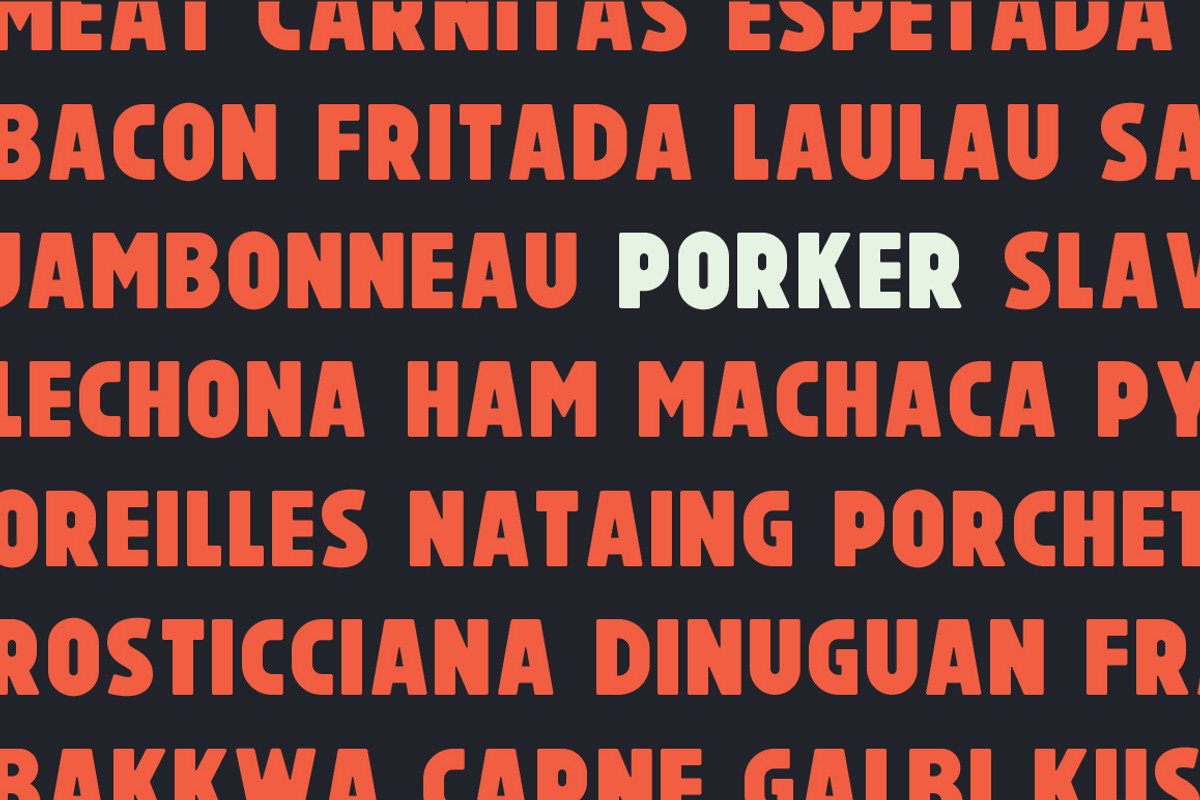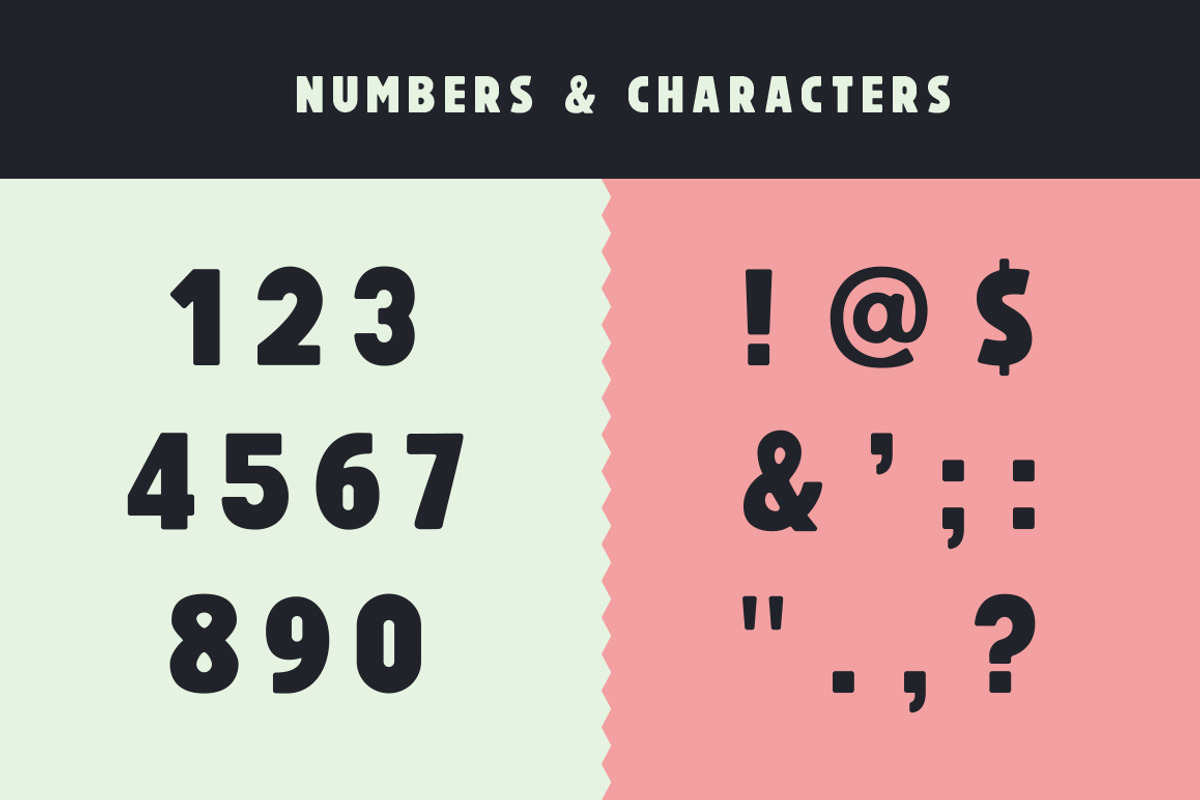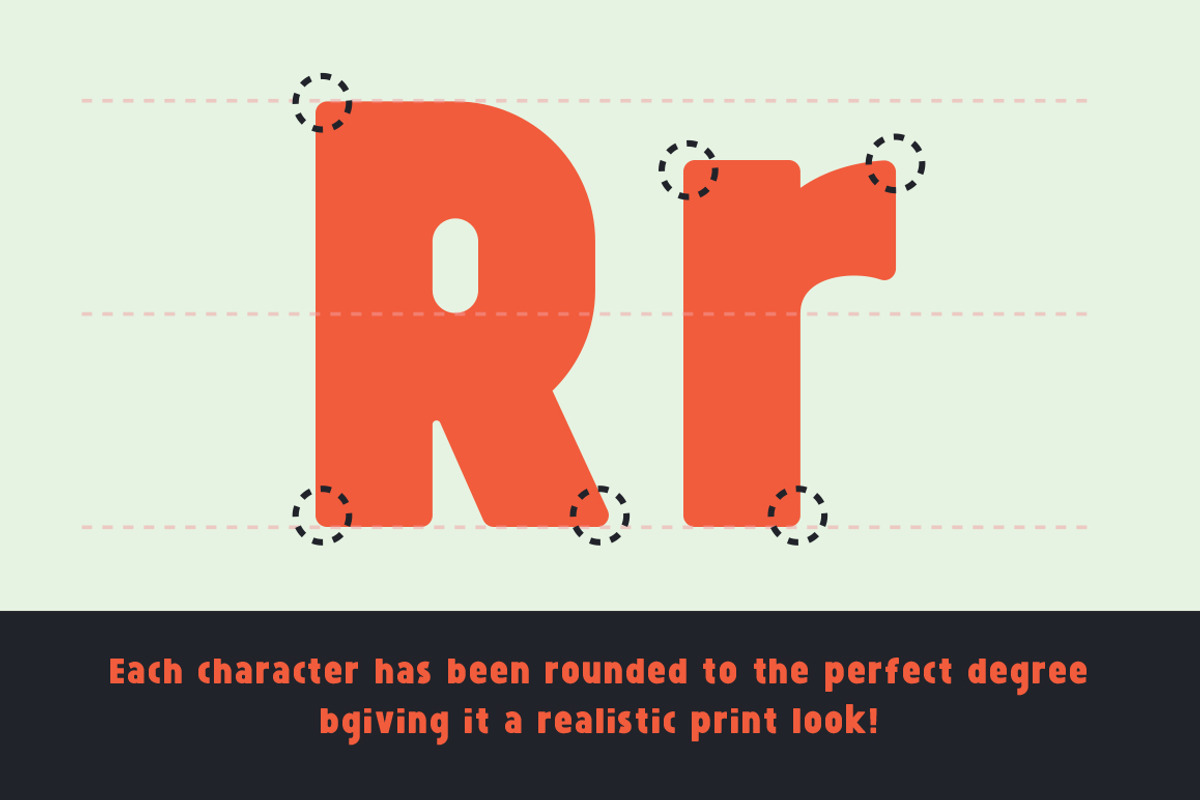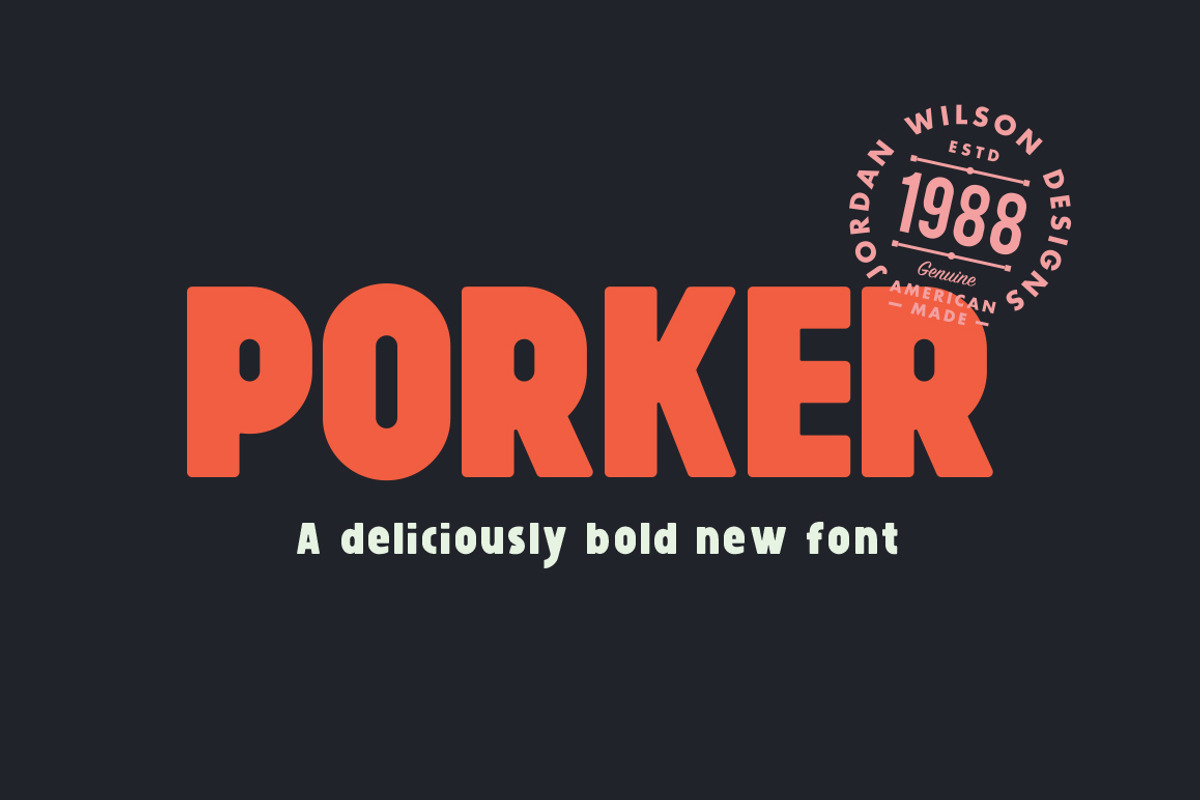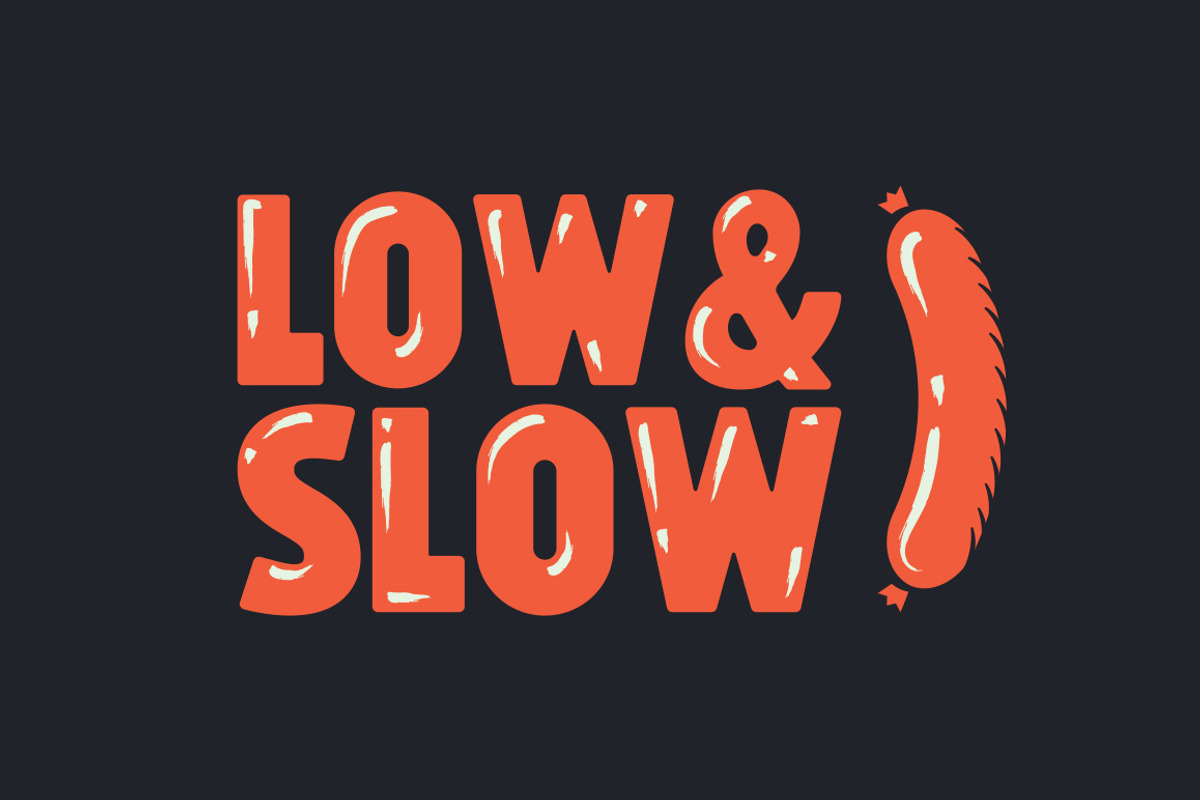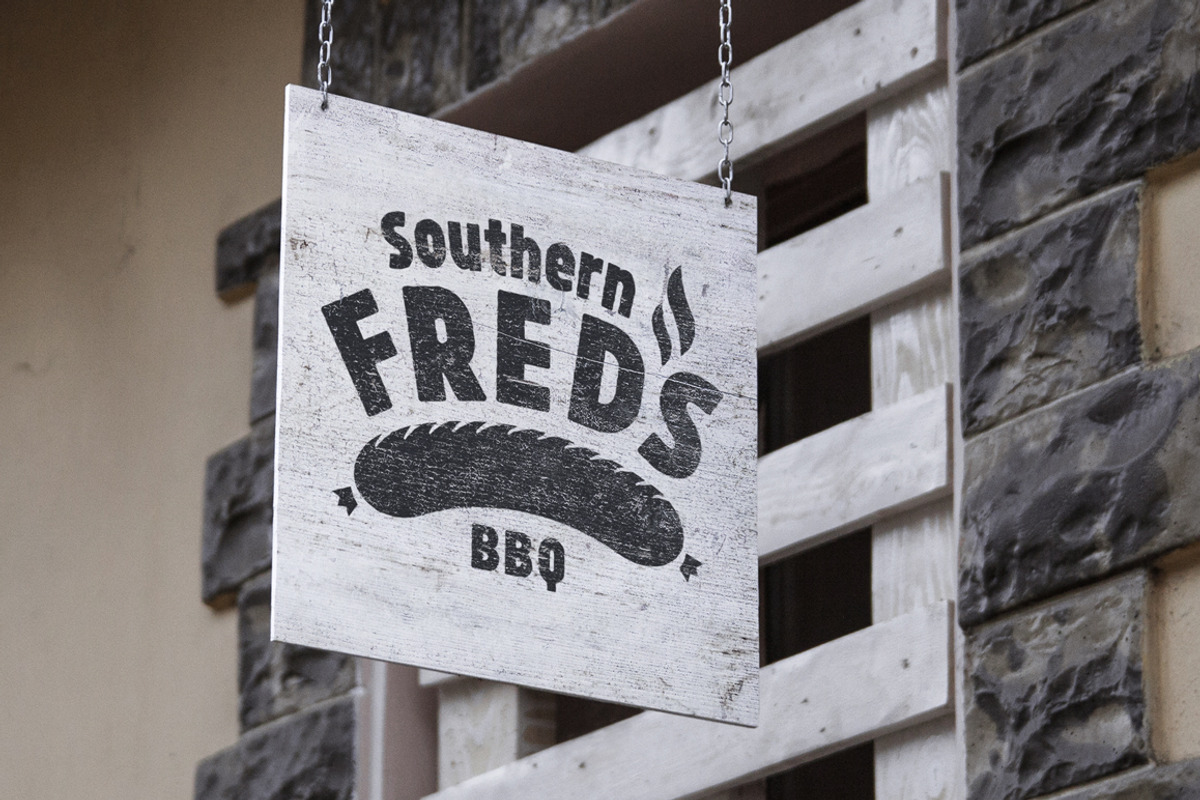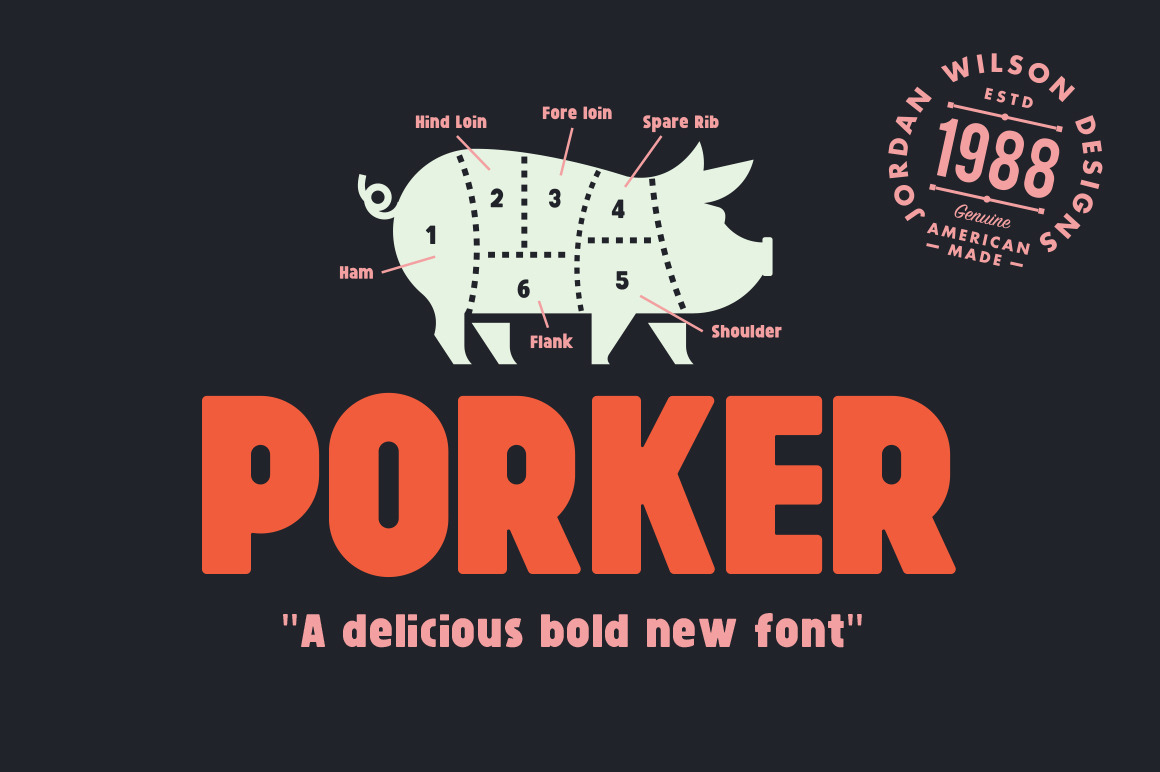
Porker Font (+ Bonus Pack)
Meet Porker - Designed by Jordan Wilson
Bold, Heavyset, and Loud, Porker is a versatile font and can handle the use for any number of applications thrown at it. It's personality and condensed structure gives it the ability to create prominent displays and titles while also settling into a pronounced paragraph. Stout, condensed uppercase partners effortlessly with the weighted lowercase, then each corner rounded out giving the type a unique vintage print quality transitioning through a full set of numerals and a large range of punctuation.
- Full set of upper and lowercase letters, numerals, and large range of punctuation